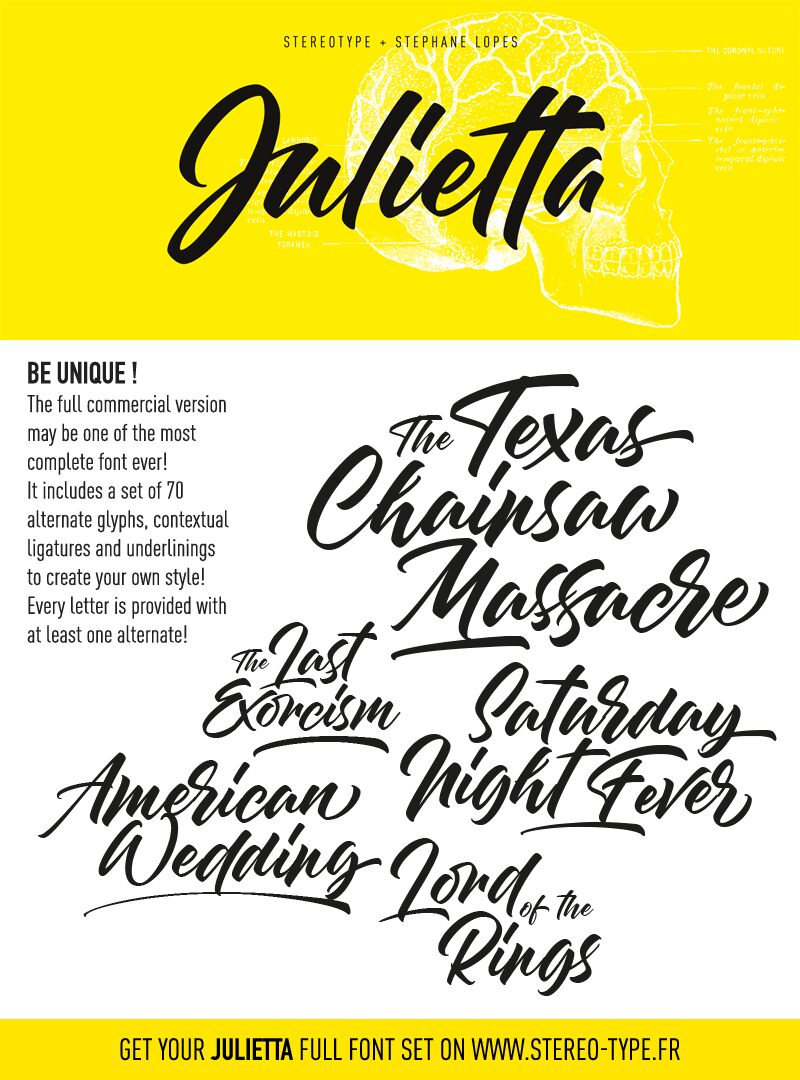
This font has been made from the original lettering work of Stphane Lopes https://www.instagram.com/stephanelopes/
The full commercial version may be one of the most complete font on the market place, including a set of 70 alternate glyphs, contextual ligatures and underlinings to create your own style!
Every letter is provided with at least one alternate!
Julietta
Clement Nicolle - StereoType
Stephane Lopes